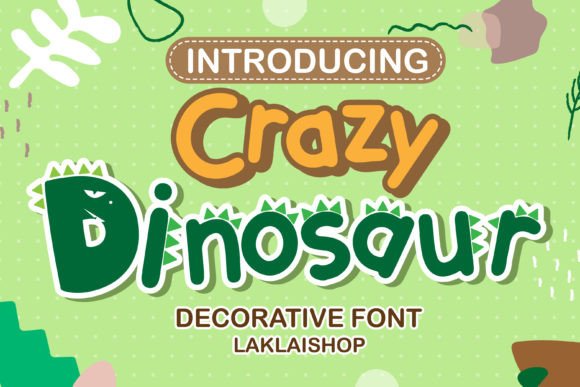
In a world where imagination knows no bounds, enter the realm of Crazy Dinosaur Font – an extraordinary decorative font family that captures the essence of adventure and sparks creativity like never before. Inspired by the marvels of the prehistoric era, this font is a tribute to the fascination kids have for dinosaurs, transporting them to a world of thrilling discoveries and boundless possibilities.
The Crazy Dinosaur Font is not just a collection of letters and symbols; it's an invitation to embark on a whimsical journey of self-expression and storytelling. Designed with meticulous attention to detail, each glyph is adorned with playful dinosaur elements, transforming ordinary words into captivating works of art. From the ferocious Tyrannosaurus Rex to the gentle Triceratops, every character bursts with personality, promising to add a touch of excitement to any creative endeavor.
Unleash the boundless potential of the Crazy Dinosaur Font in your next kids' activity or school project. Imagine coloring pages featuring dinosaurs frolicking amidst vibrant landscapes, or posters celebrating the wonders of natural history. With its adventurous spirit and captivating charm, this font will ignite a passion for learning and exploration in young minds, making every project an unforgettable experience.
Whether you're a teacher crafting engaging educational materials, a parent seeking to spark your child's creativity, or a designer looking to add a touch of whimsy to your projects, the Crazy Dinosaur Font is your perfect companion. Its versatility knows no limits, extending beyond kids' activities and school projects to encompass invitations, greeting cards, website designs, and social media posts.
With the Crazy Dinosaur Font, you'll discover a world of endless possibilities, where every design becomes an adventure. Its playful and enchanting nature is guaranteed to leave a lasting impression on your audience, creating a visual experience that's both captivating and unforgettable.
So, let your imagination soar, embrace the spirit of adventure, and bring your creative visions to life with the Crazy Dinosaur Font. The world of dinosaurs awaits, ready to inspire and captivate hearts of all ages.